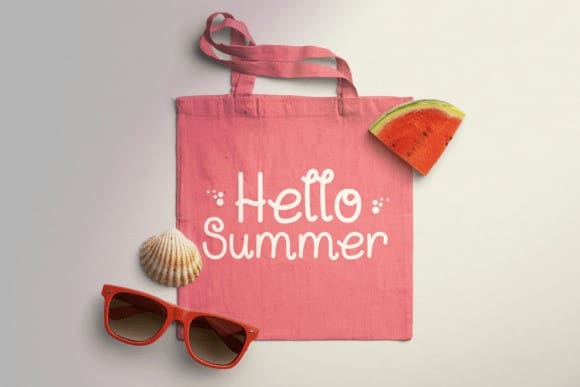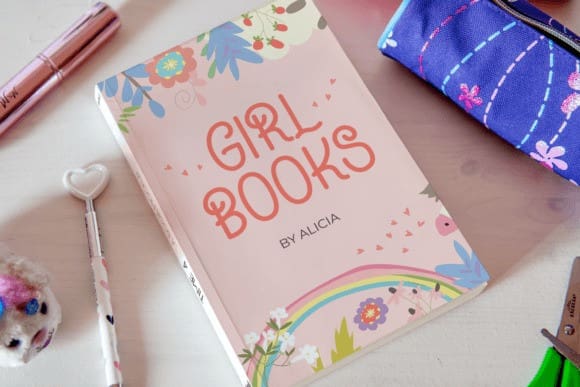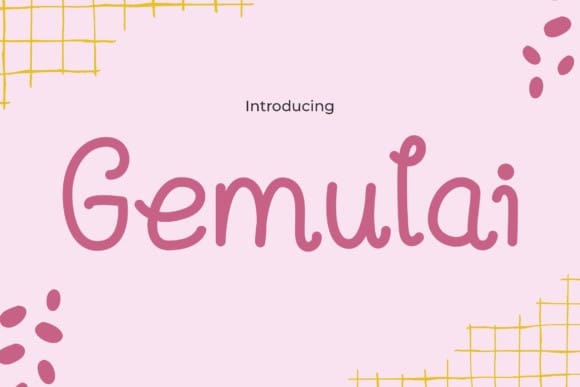
Gemulai Script Font
Gemulai Script Font, the perfect font for adding a touch of charm and femininity to your designs. As a display font with a girly theme, Gemulai exudes elegance and sophistication, making it ideal for a wide range of creative projects. Each letter is delicately crafted to embody grace and flair, allowing you to create eye-catching headlines, logos, and invitations that capture attention with their playful yet elegant style.